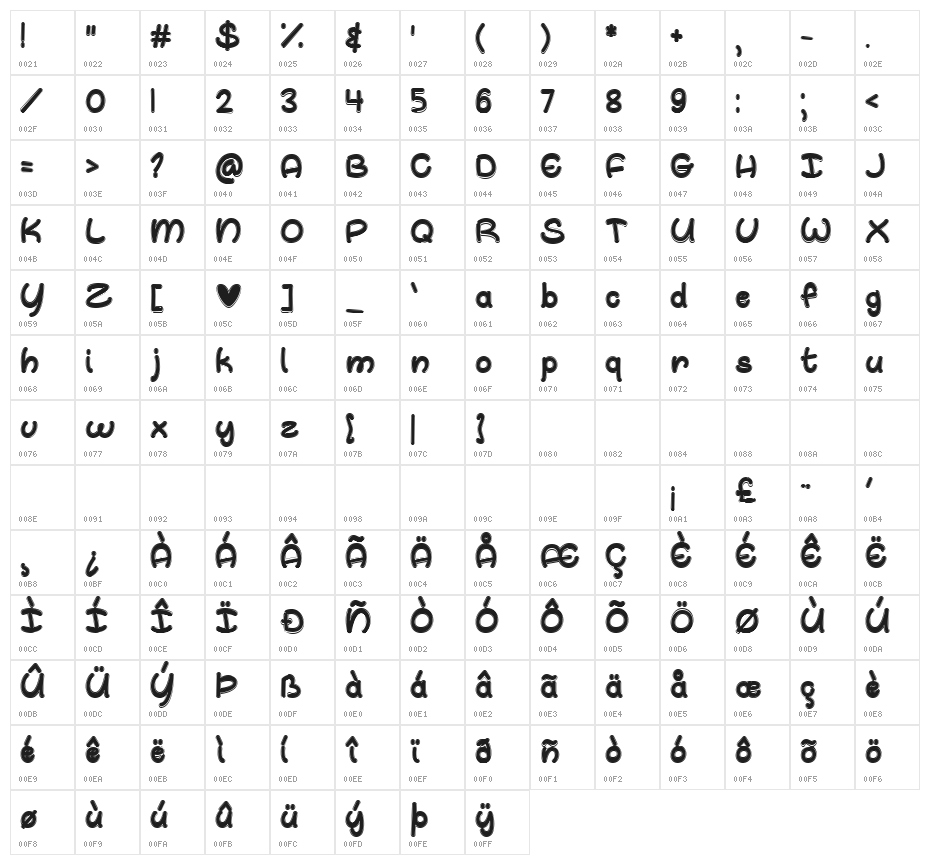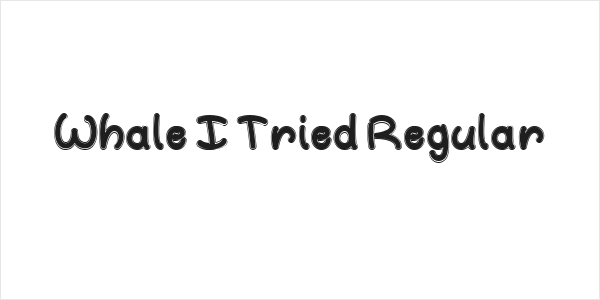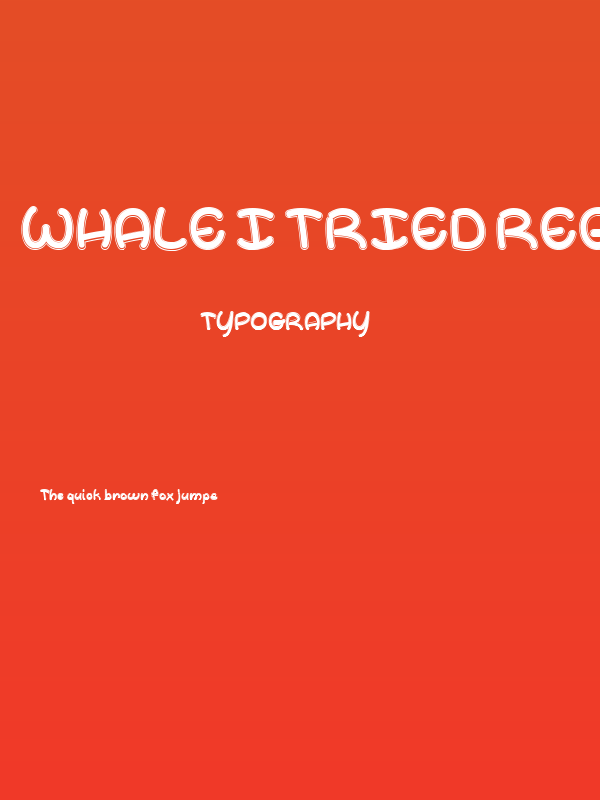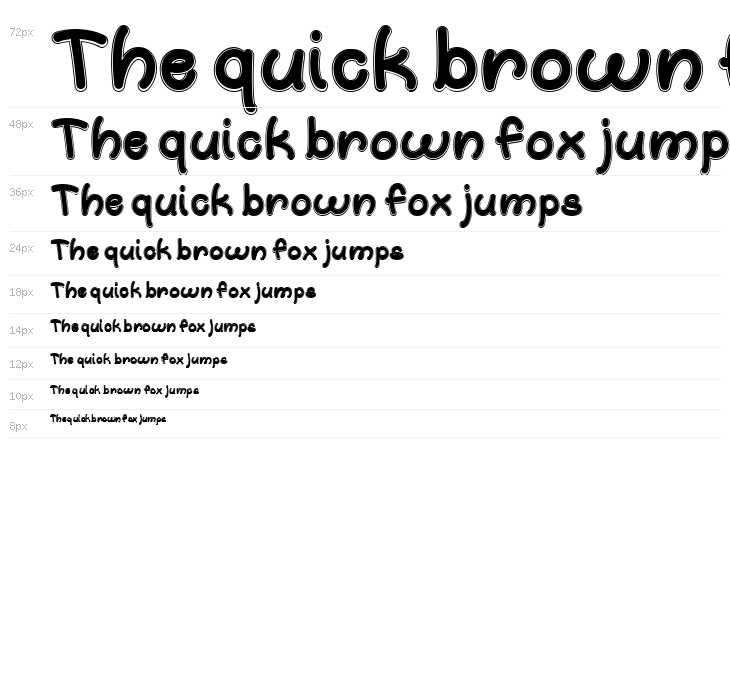
Whale I Tried Regular Font
Whale I Tried Regular Description
This playful and bold font features a unique bubble-like appearance with thick, rounded strokes and a slight shadow effect that adds depth. The characters are wide and have a whimsical, cartoonish style, making them stand out with a fun and friendly vibe. The uppercase and lowercase letters maintain a consistent style, with smooth curves and a slightly exaggerated form. Numbers and special characters follow the same design, ensuring a cohesive look across all elements. The font's distinct personality makes it ideal for projects that require a touch of creativity and humor.
WidthExpanded
Overall StylePlayful, Whimsical
Proposed ProjectsIdeal for children's books, playful branding, party invitations, and creative posters.